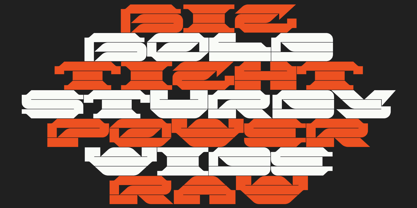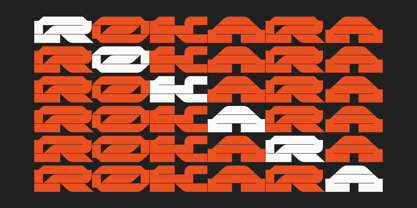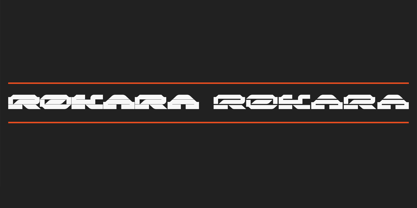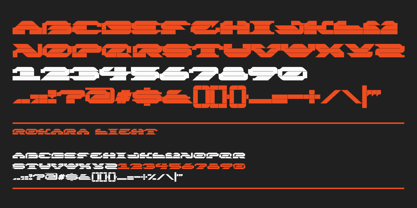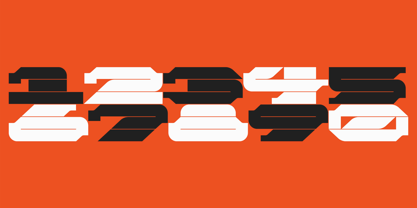
Rokara
by Sawdust
The Rokara Font Family was designed by Jonathan Quainton and published by Sawdust. Rokara contains 2 styles and family package options.
Rokara is a bold, edgy display typeface designed to make a powerful impact. Its extreme, monospaced structure is perfect for commanding attention in larger headlines. While the typeface’s modular design initially gives off a brutalist vibe, a closer look reveals subtle, elegant details in each glyph, ensuring both distinctiveness and readability.
Rokara is available in two versatile weights: the original, perfect for making a striking impact, and a lighter version, thoughtfully crafted for smaller-scale applications.